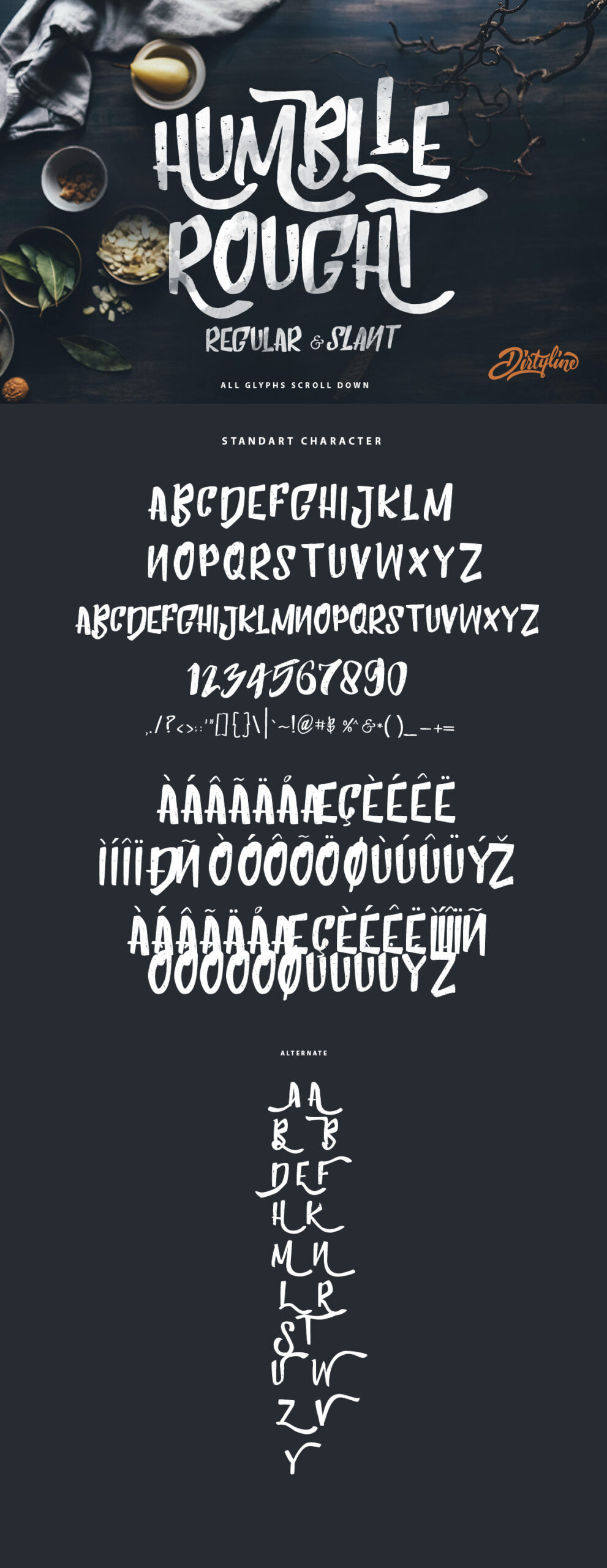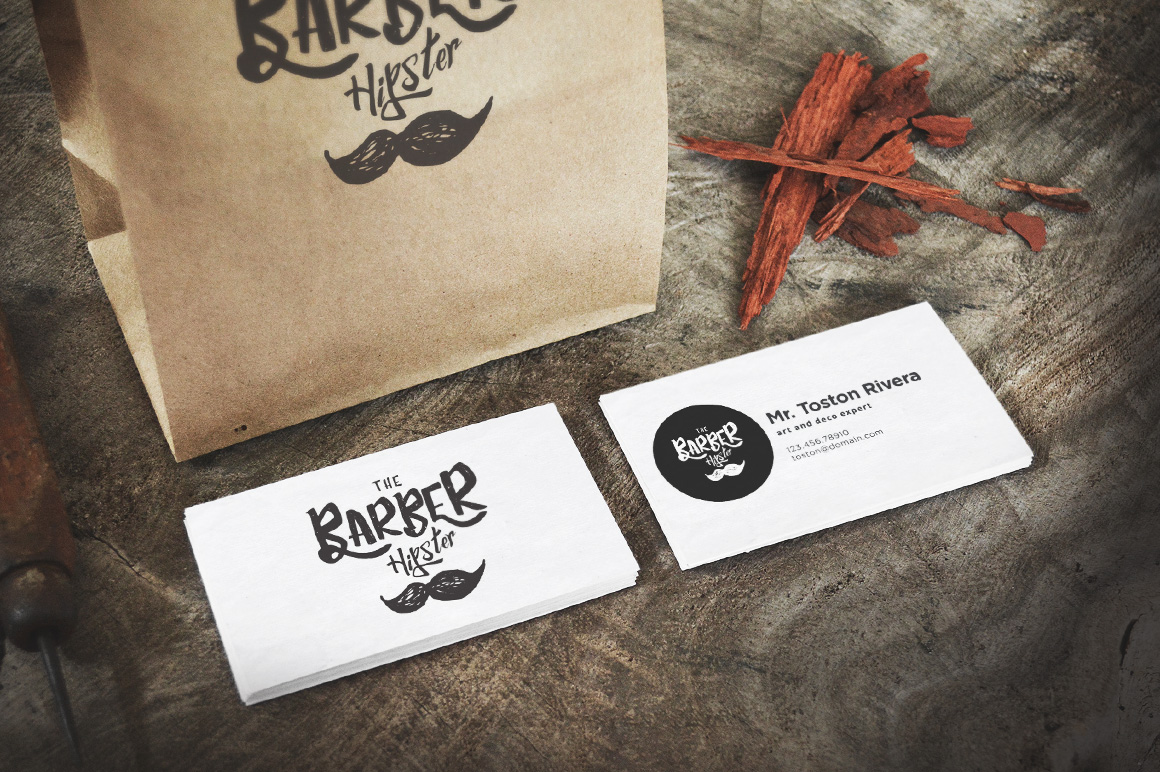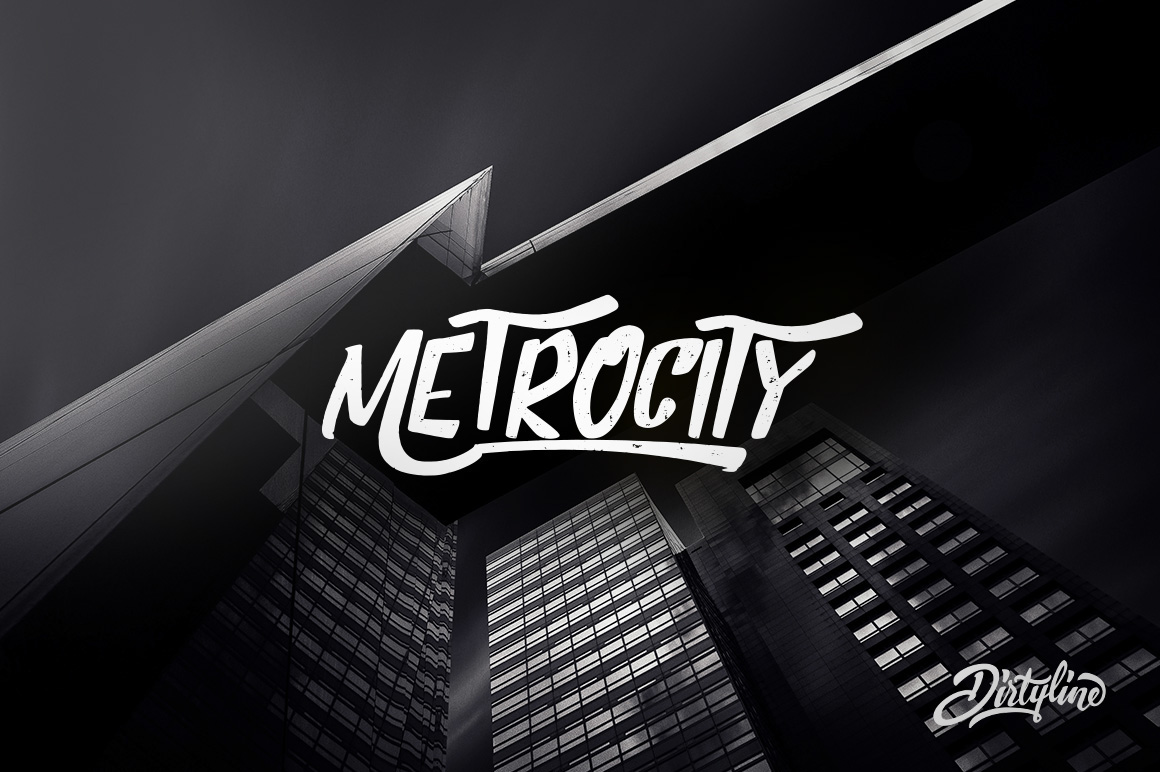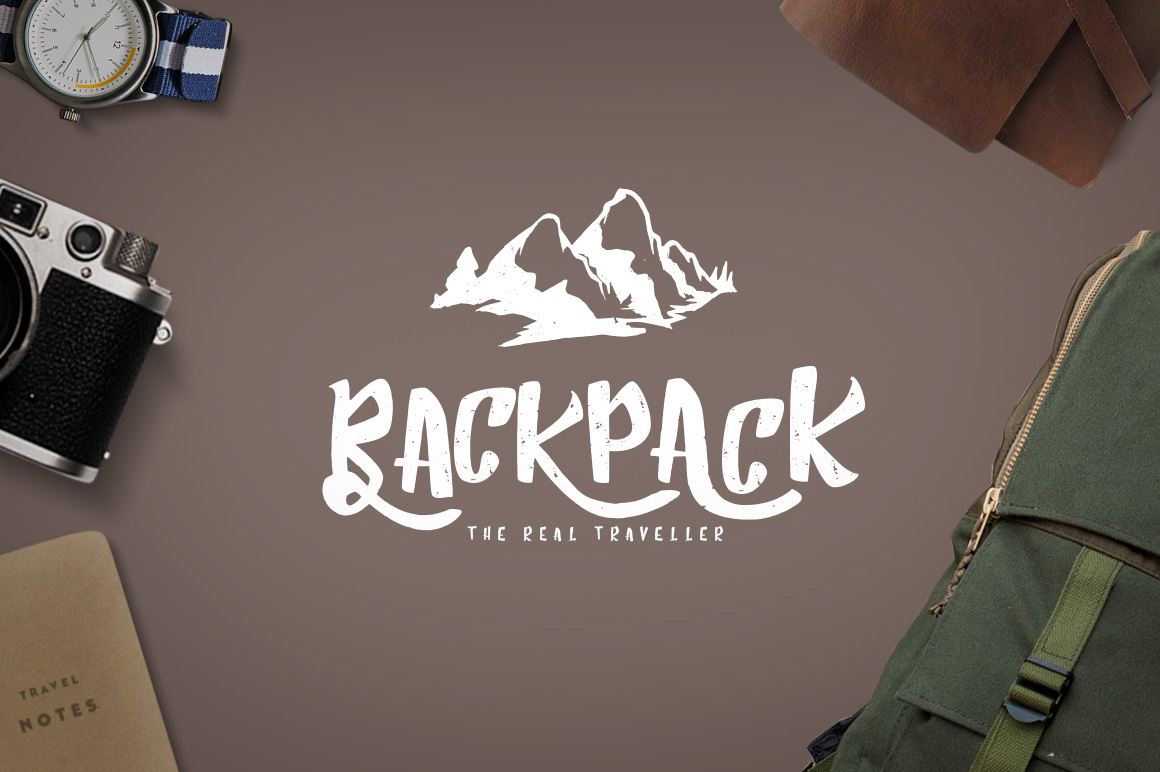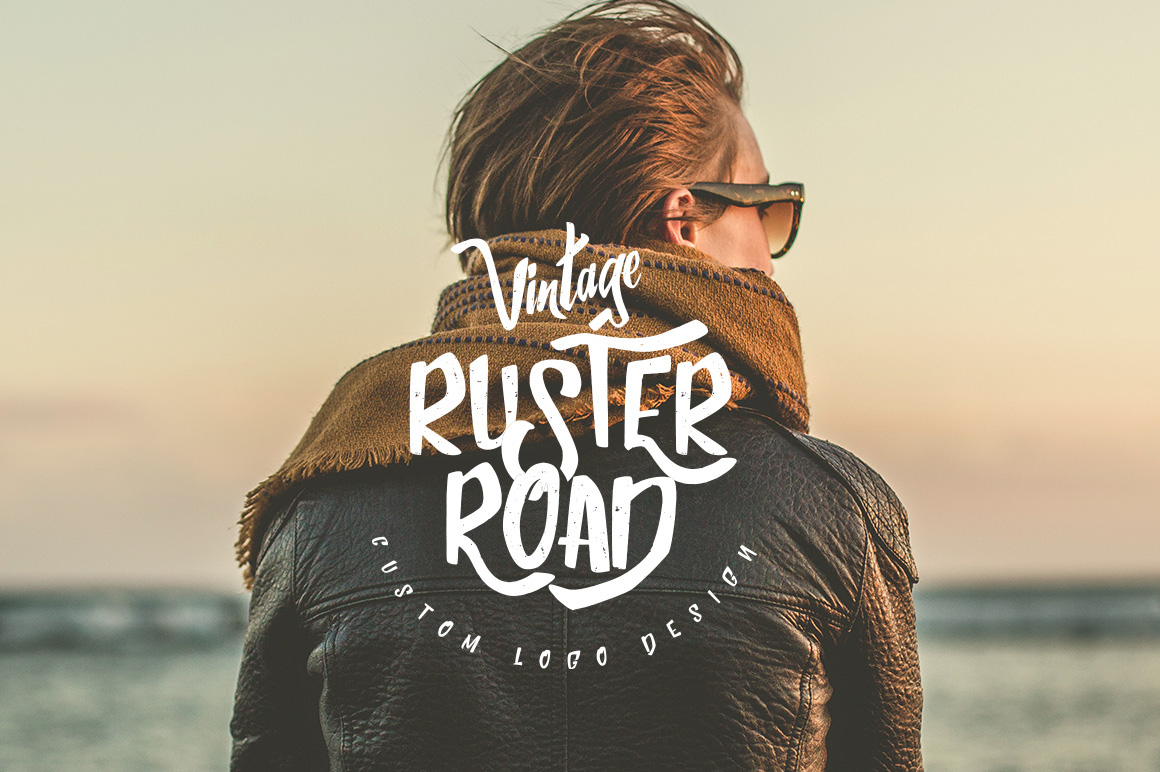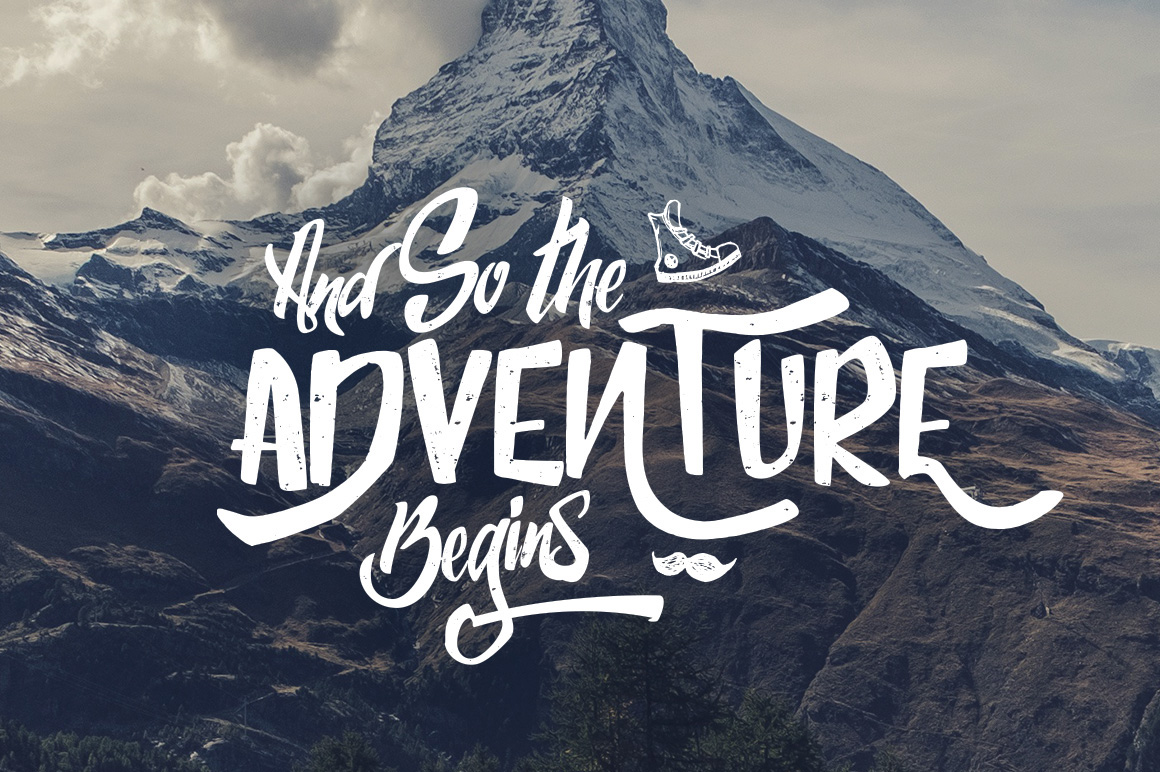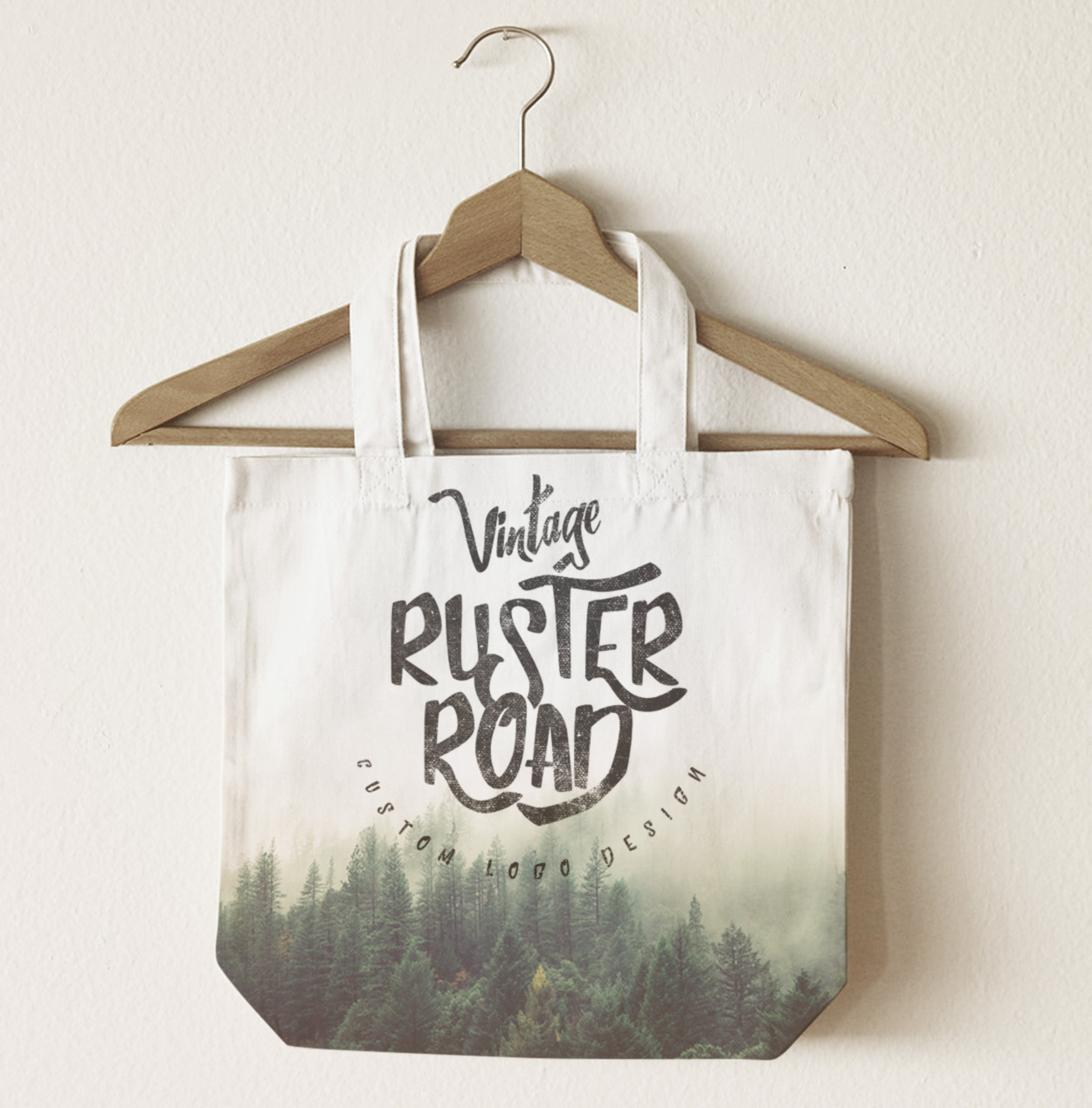
If you’re jazzing up your artwork, consider working in this modern typeface. Designed by Hendra Dirtyline, Humblle Rough font is perfect for using on invitations, stationery, wedding items, gifts, labels and more. Download the free font below!